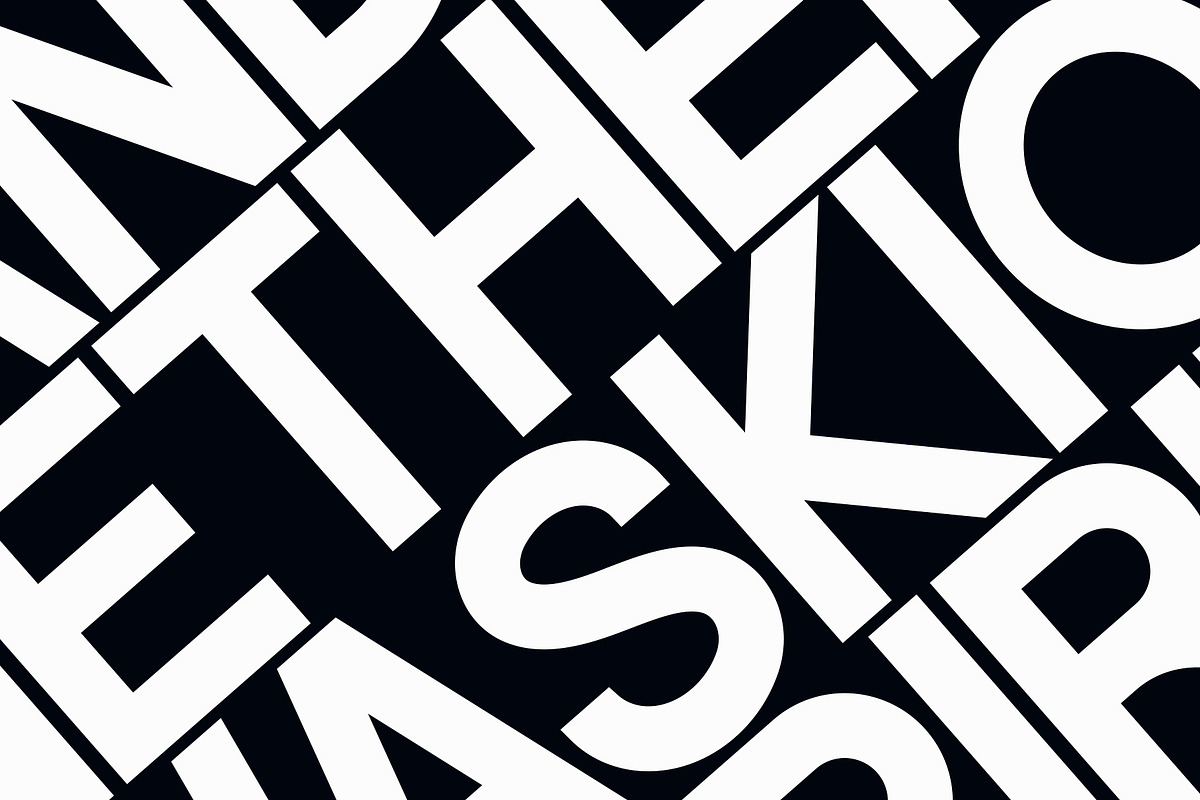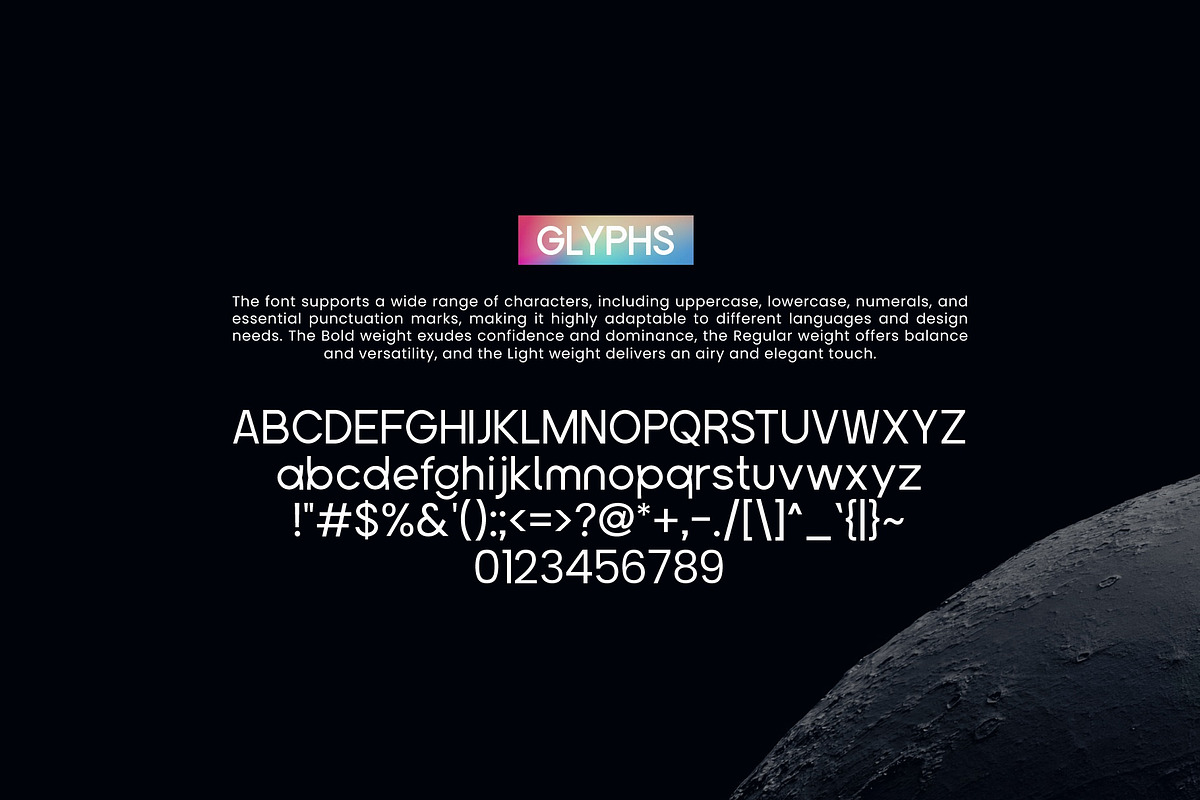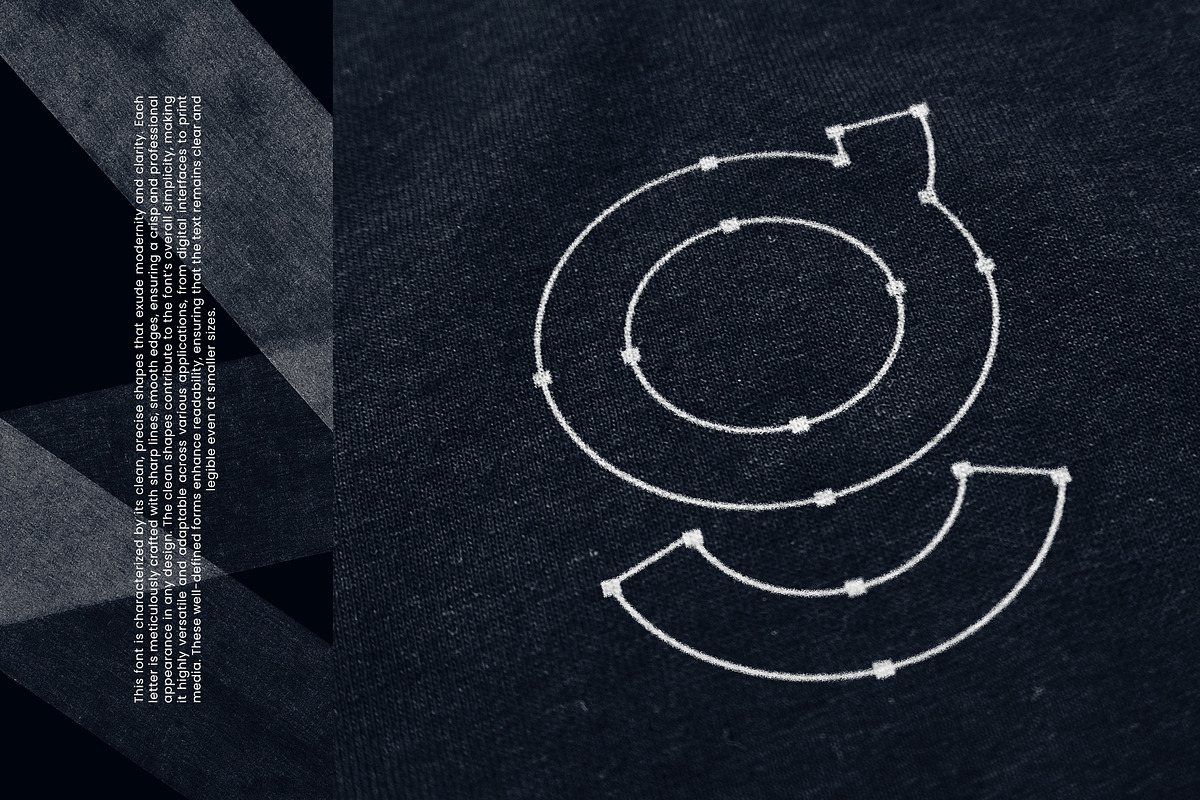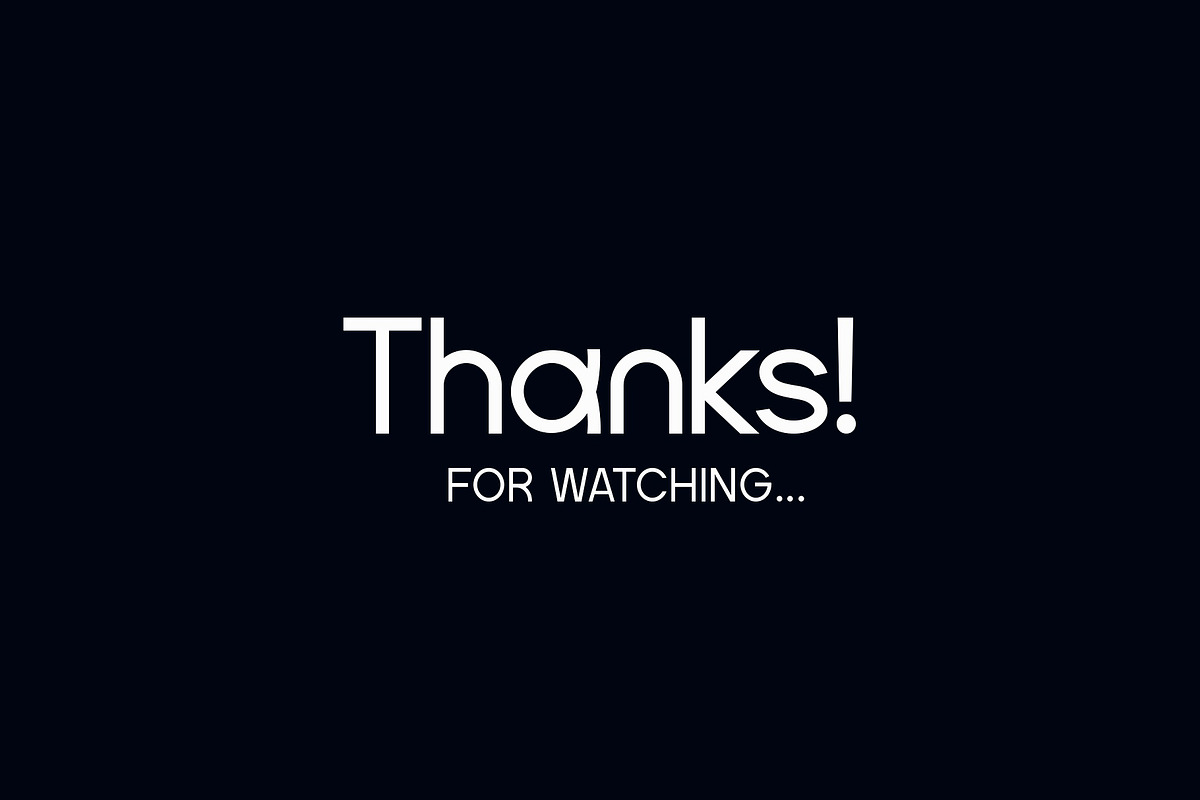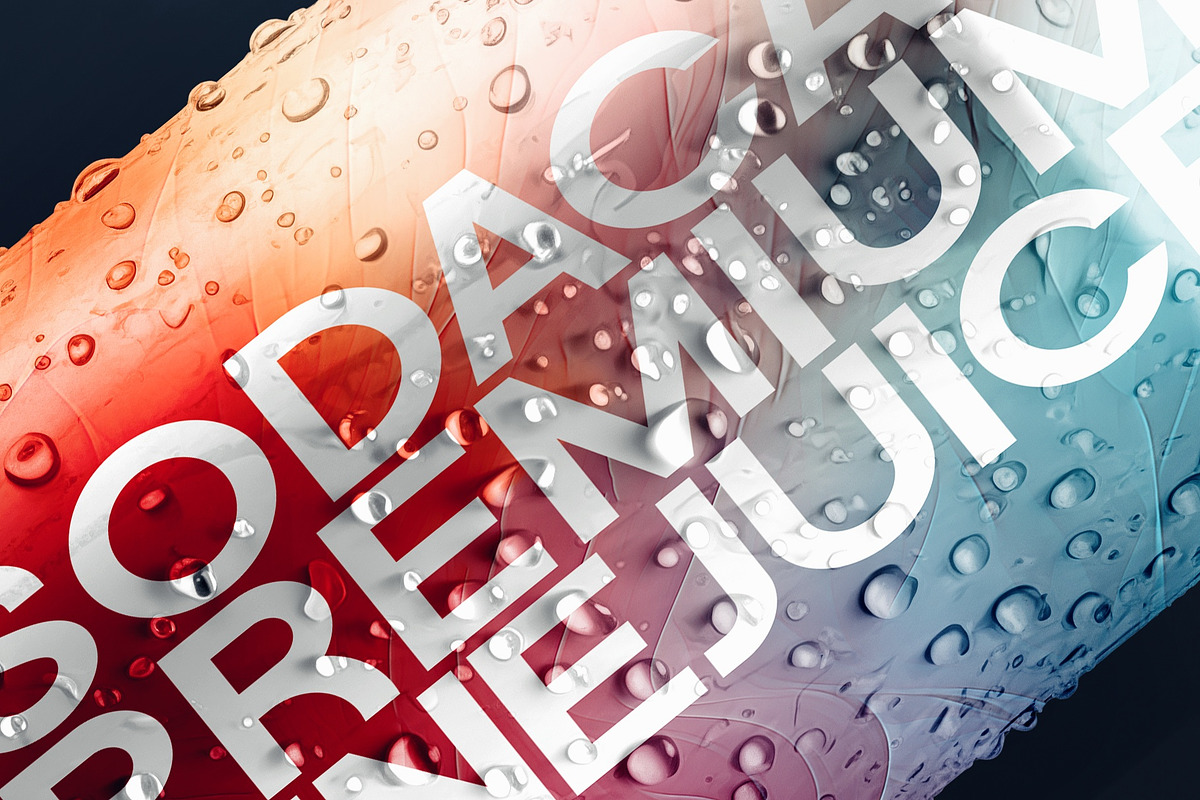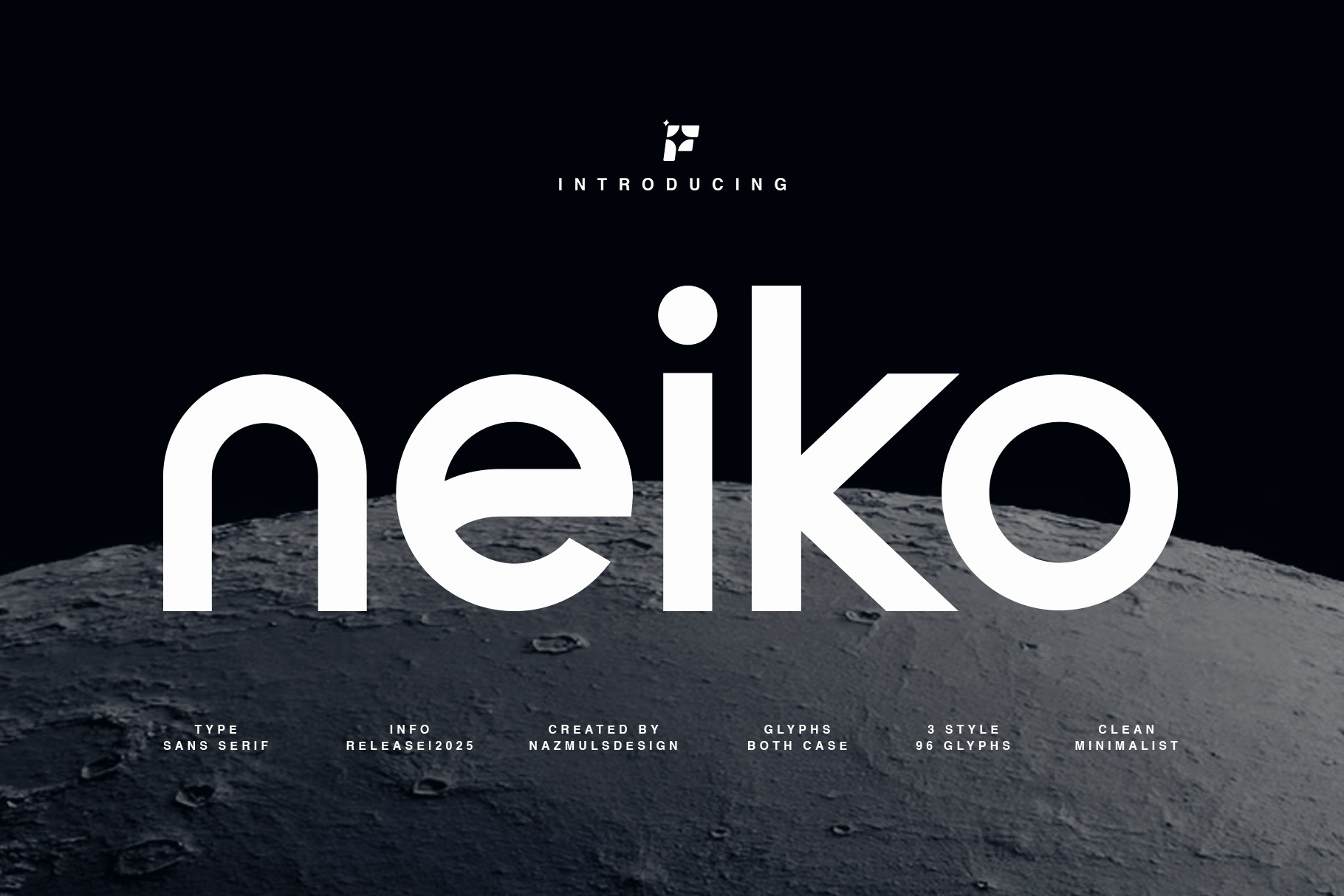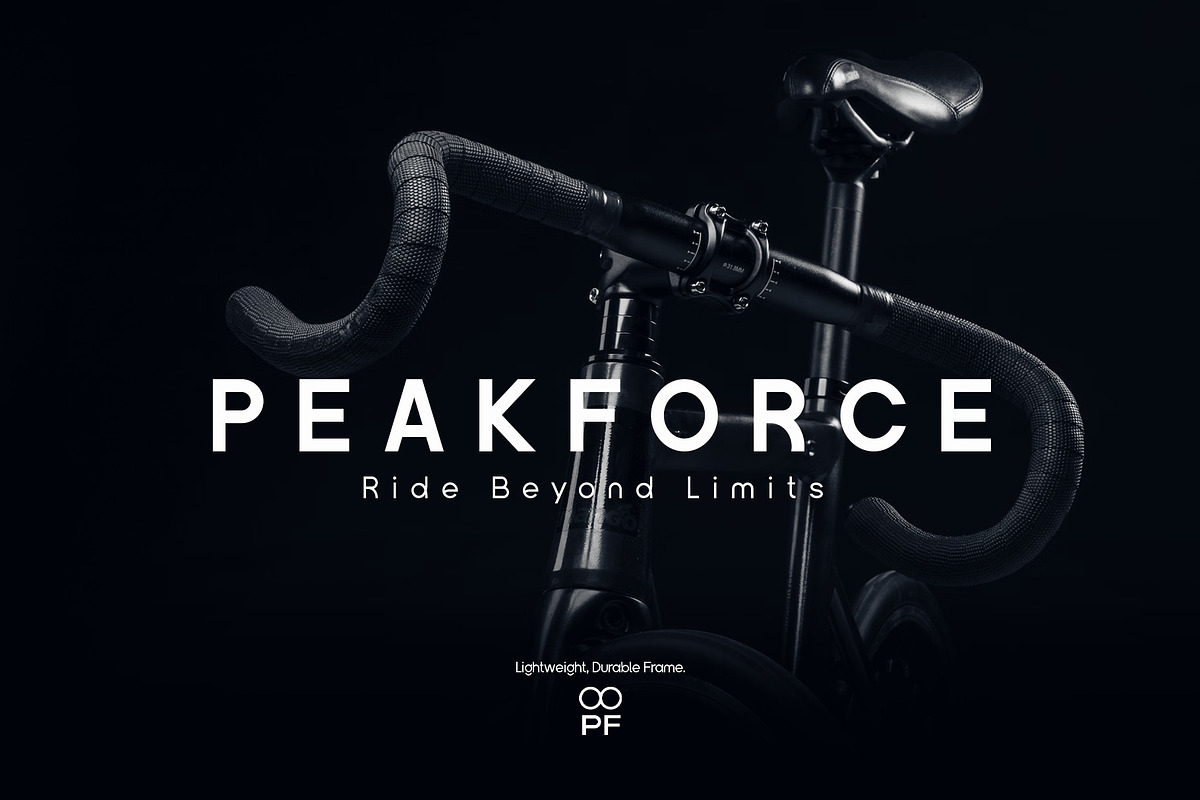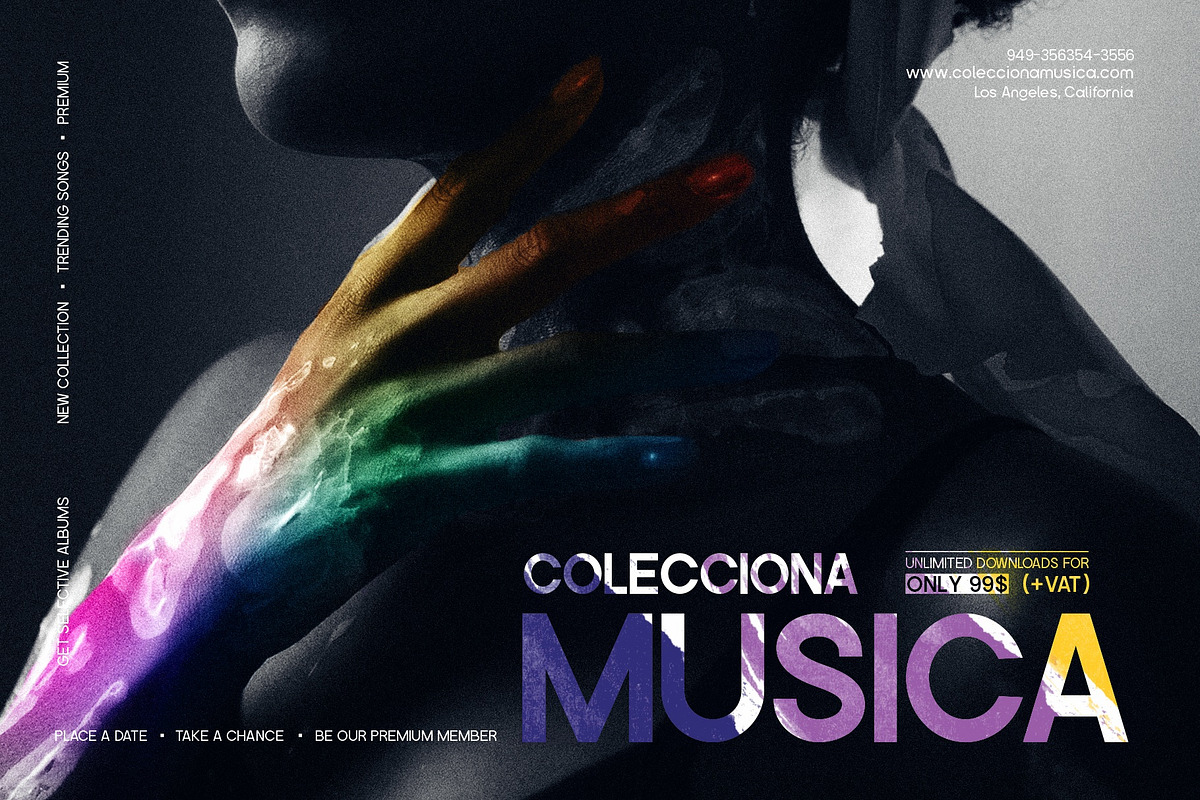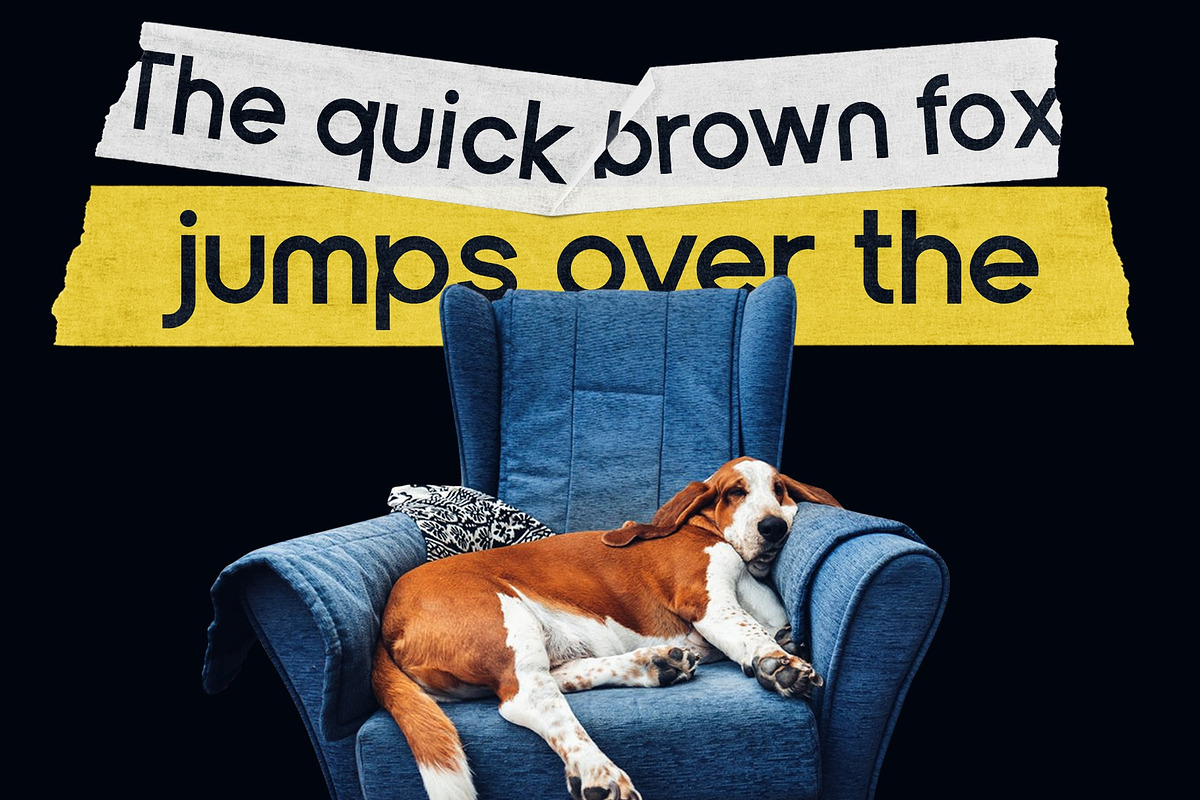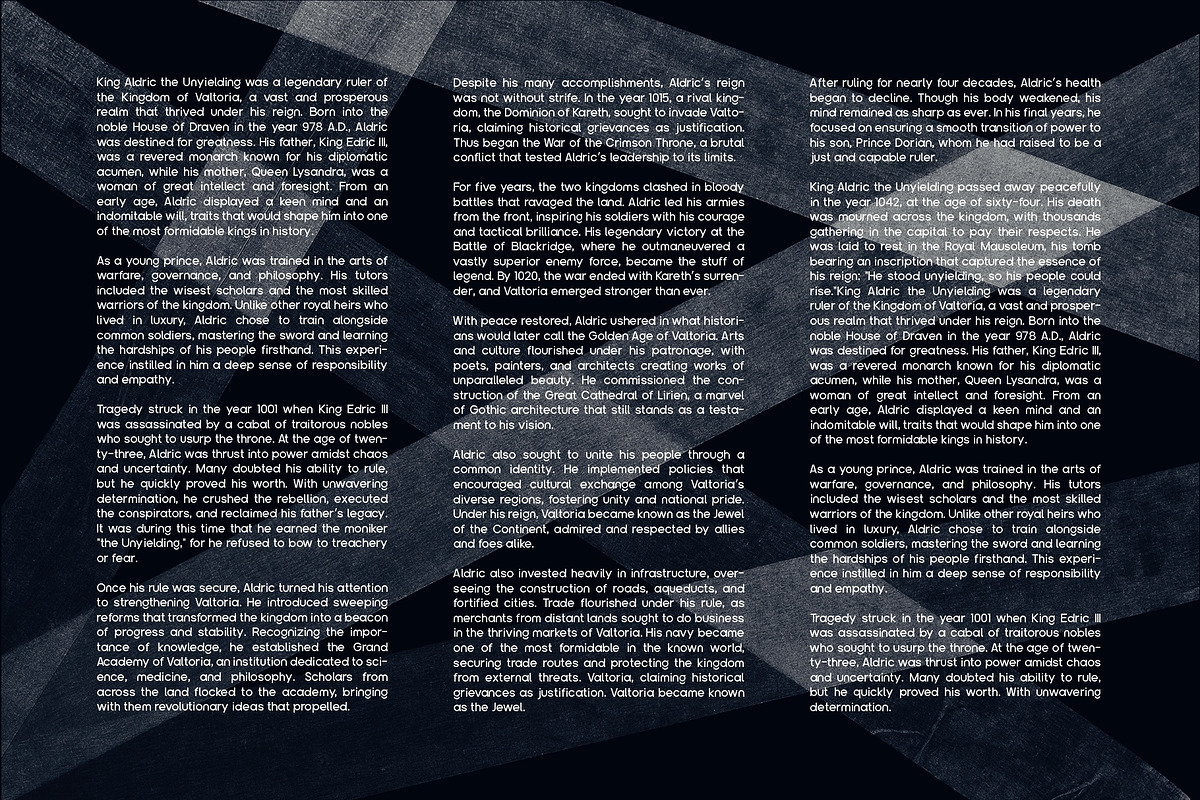
Neiko | Sans Serif Typeface
Neiko is a sleek and contemporary sans-serif typeface designed for versatility and clarity. With its clean lines and balanced proportions, Neiko font is perfect for branding, editorial design, packaging, and more.
This typeface comes in three distinct weights—Bold, Regular, and Light—allowing designers to create dynamic typography with ease. Whether you're crafting a bold headline or elegant body text, Neiko delivers a polished and professional look. Neiko typeface is built for designers who appreciate simplicity with a touch of modern sophistication.